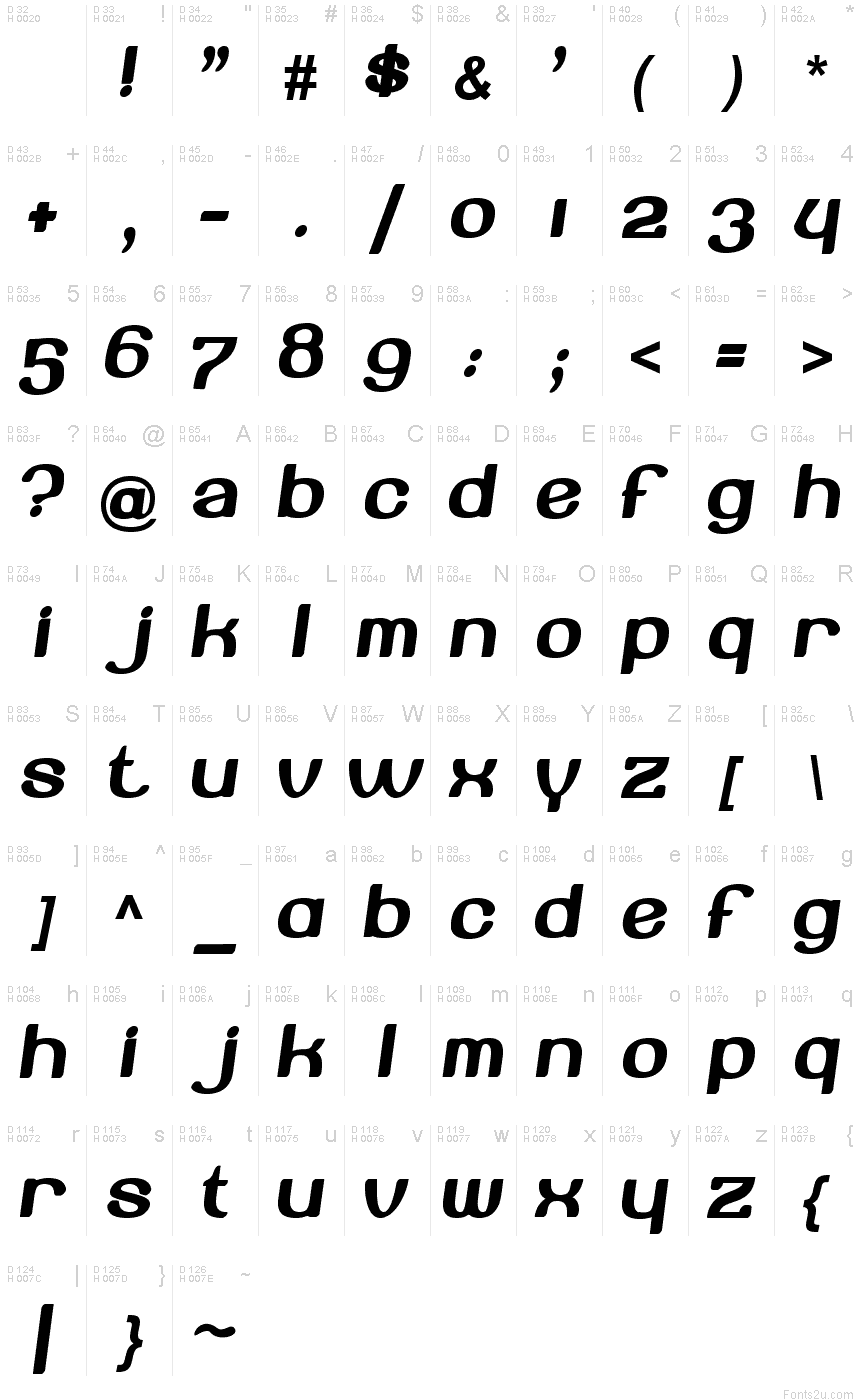
Beroga by Peter Wiegel is a free groovy display font with broad, rounded letters and a lively forward lean. Stroke widths swell and taper in a soft, hand-drawn way. The uneven curves keep it informal.
Its bulbous shapes share the easy curves of cartoon food illustrations and playful mascot art, making it a natural fit for snack packaging and cafe branding. For concert posters and casual merchandise, the slanted lettering suggests upbeat 1970s pop graphics without strict period imitation. It suits brands aimed at young, creative audiences with a taste for cheerful retro styling.